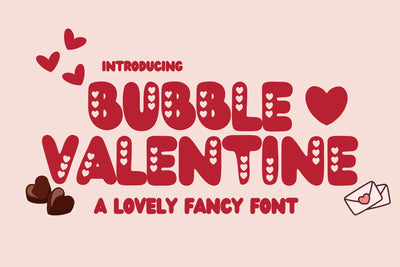
Bubble Valentine Font
Bubble Valentine Font is a sweet and playful typeface designed to bring love and joy to your creative projects! With its bubbly, rounded letters and charming aesthetic, this font is perfect for Valentine's Day designs, love letters, greeting cards, wedding invitations, and more. Its soft and fun appearance makes it ideal for creating a warm, affectionate vibe in any project. Whether you're designing for social media, branding, or special occasions, Bubble Valentine Font will add a touch of love and happiness to your work.
- Cute & Playful Design: Rounded, bubbly letters that radiate warmth and happiness.
- Perfect for Love-Themed Projects: Ideal for Valentine's Day cards, romantic quotes, and wedding stationery.
- Versatile Usage: Great for posters, branding, invitations, packaging, and more.